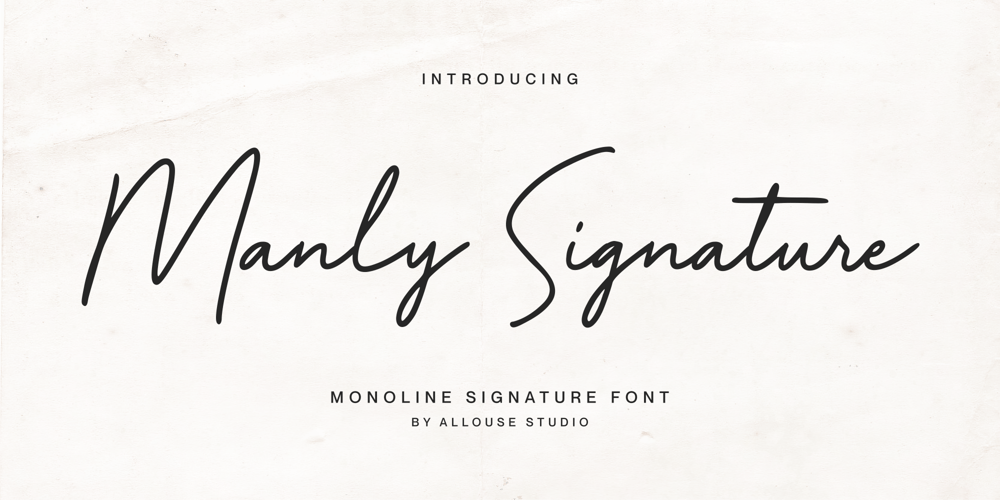
Manly Signature Font Family was designed by Fachrizal Yusuf and published by Allouse Studio. Manly Signature contains 1 styles and family package options. Proudly Present, Manly Signature a Monoline Signature FontManly Signature is perfect for any titles, logo, product packaging, branding project, magazine, social media, wedding, or just used to express words above the background.Manly Signature also come with Multi-Lingual Support.Enjoy the font, feel free to comment or feedback, send me PM or email. Thank You!